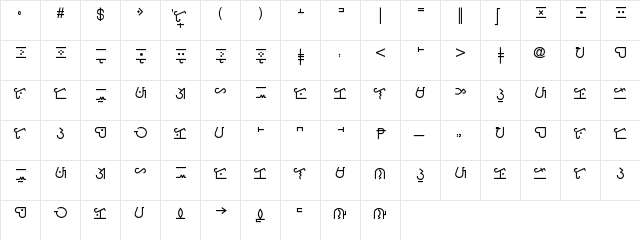
Panulatin Linear -Normal Regular Font Preview
Panulatin Linear -Normal Regular
Design Context for Panulatin Linear -Normal Typeface
Panulatin Linear -Normal is a composed and adaptable typeface that performs quietly and consistently across a wide range of design contexts.